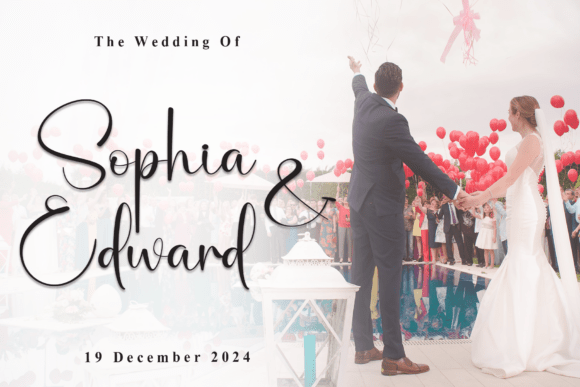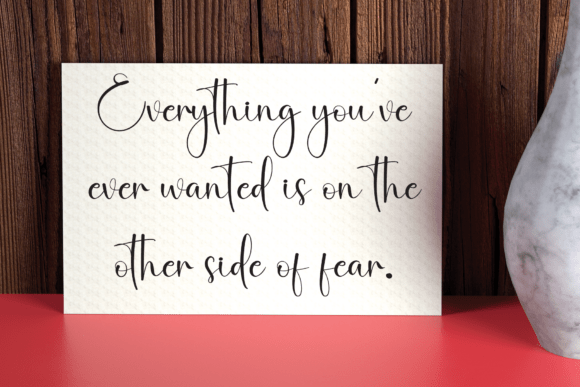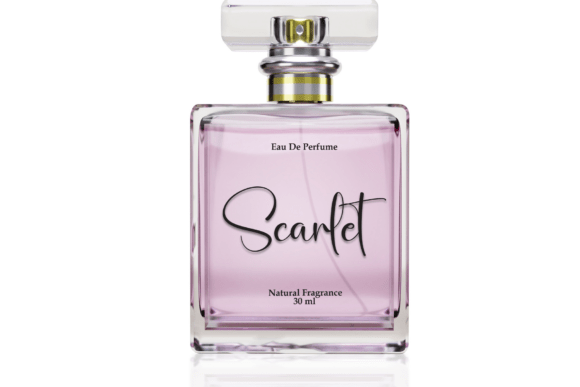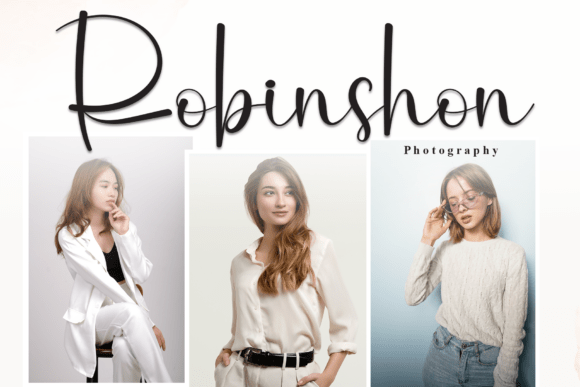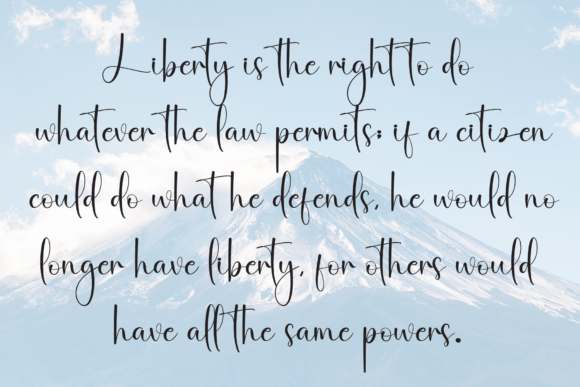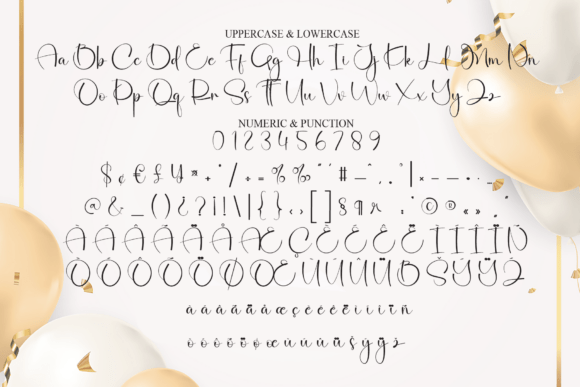
Introducing Birthday Font: The Elegant Handwritten Script for Your Designs
Are you looking for a font that can add a touch of elegance and charm to your designs? Look no further than Birthday Font, a beautiful handwritten script font that exudes sophistication and warmth. With its fluid strokes and natural flow, this font is perfect for creating captivating designs that stand out from the crowd.
The Characteristics of Birthday Font
Birthday Font is a stylish handwritten script font that boasts a range of characteristics that make it perfect for a variety of design applications. Some of its key features include:
- Fluid strokes: The font features fluid, connected strokes that create a sense of movement and flow.
- Natural flow: The natural flow of the font makes it feel organic and authentic, adding a touch of warmth to any design.
- Elegant charm: The font’s elegant charm makes it perfect for designs that require a touch of sophistication and refinement.
Uses for Birthday Font
Birthday Font is a versatile font that can be used in a variety of design applications, including:
- Invitations: Use Birthday Font to create beautiful, personalized invitations for special occasions like birthdays, weddings, and anniversaries.
- Branding: Add a touch of elegance and sophistication to your brand with Birthday Font, perfect for logos, packaging, and marketing materials.
- Social media: Use Birthday Font to create eye-catching social media graphics, posts, and stories that stand out from the crowd.
Why Choose Birthday Font?
So why choose Birthday Font over other fonts? Here are just a few reasons:
- Unique and distinctive: Birthday Font is a unique and distinctive font that will help your designs stand out from the crowd.
- Easy to read: Despite its elegant and cursive nature, Birthday Font is easy to read and understand, making it perfect for body text and headlines.
- Customizable: Birthday Font can be customized to fit your design needs, allowing you to adjust the size, color, and style to suit your brand.
Tips for Using Birthday Font
Here are a few tips for using Birthday Font in your designs:
- Pair with contrasting fonts: Pair Birthday Font with contrasting fonts to create visual interest and hierarchy in your designs.
- Experiment with colors: Experiment with different colors and textures to add depth and dimension to your designs.
- Use it sparingly: Use Birthday Font sparingly to create emphasis and draw attention to specific elements in your design.
In conclusion, Birthday Font is a beautiful and elegant handwritten script font that can add a touch of sophistication and charm to any design. With its fluid strokes, natural flow, and elegant charm, this font is perfect for designers and crafters looking to create captivating and unique designs. Whether you’re creating invitations, branding materials, or social media graphics, Birthday Font is the perfect choice.